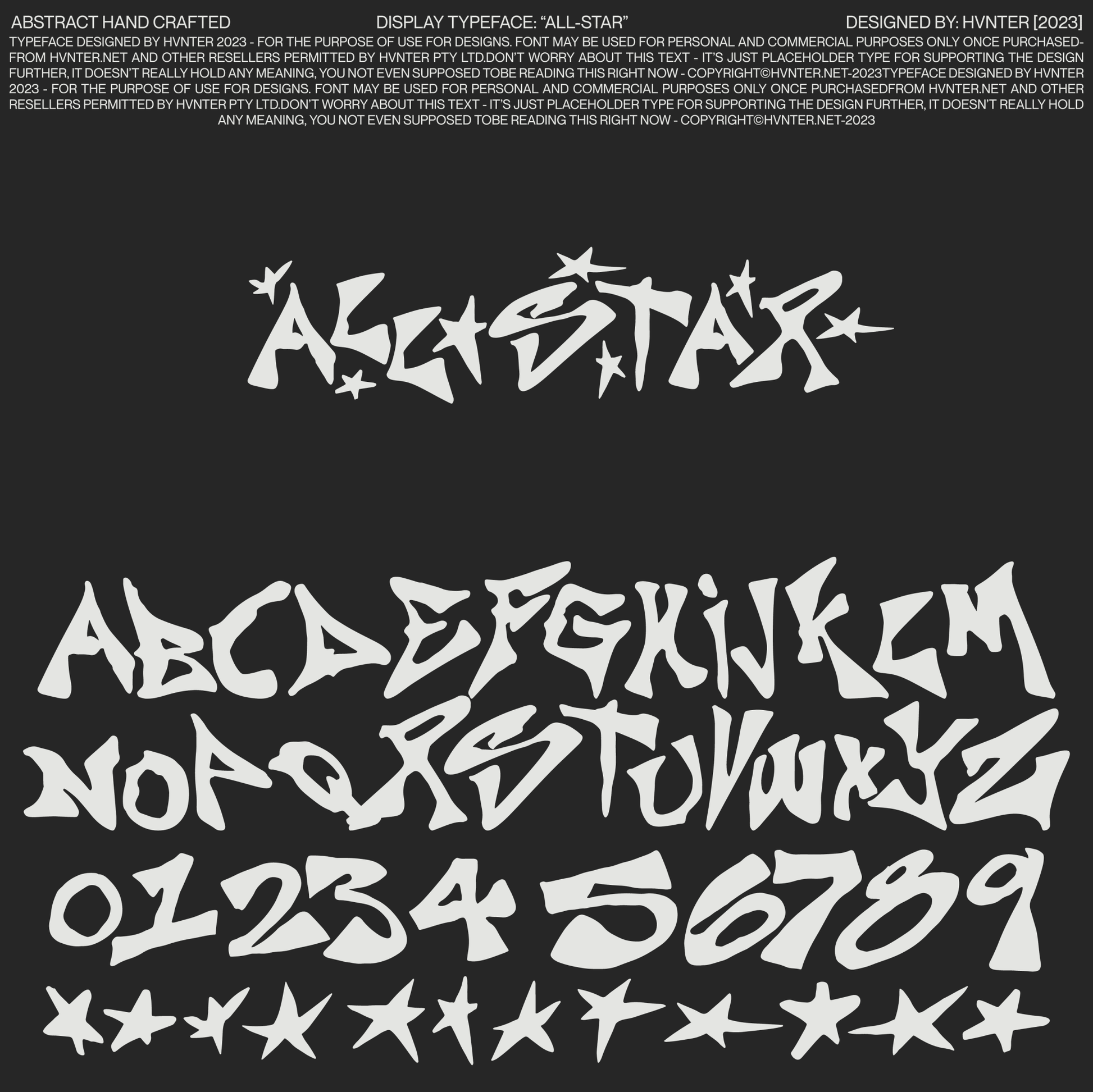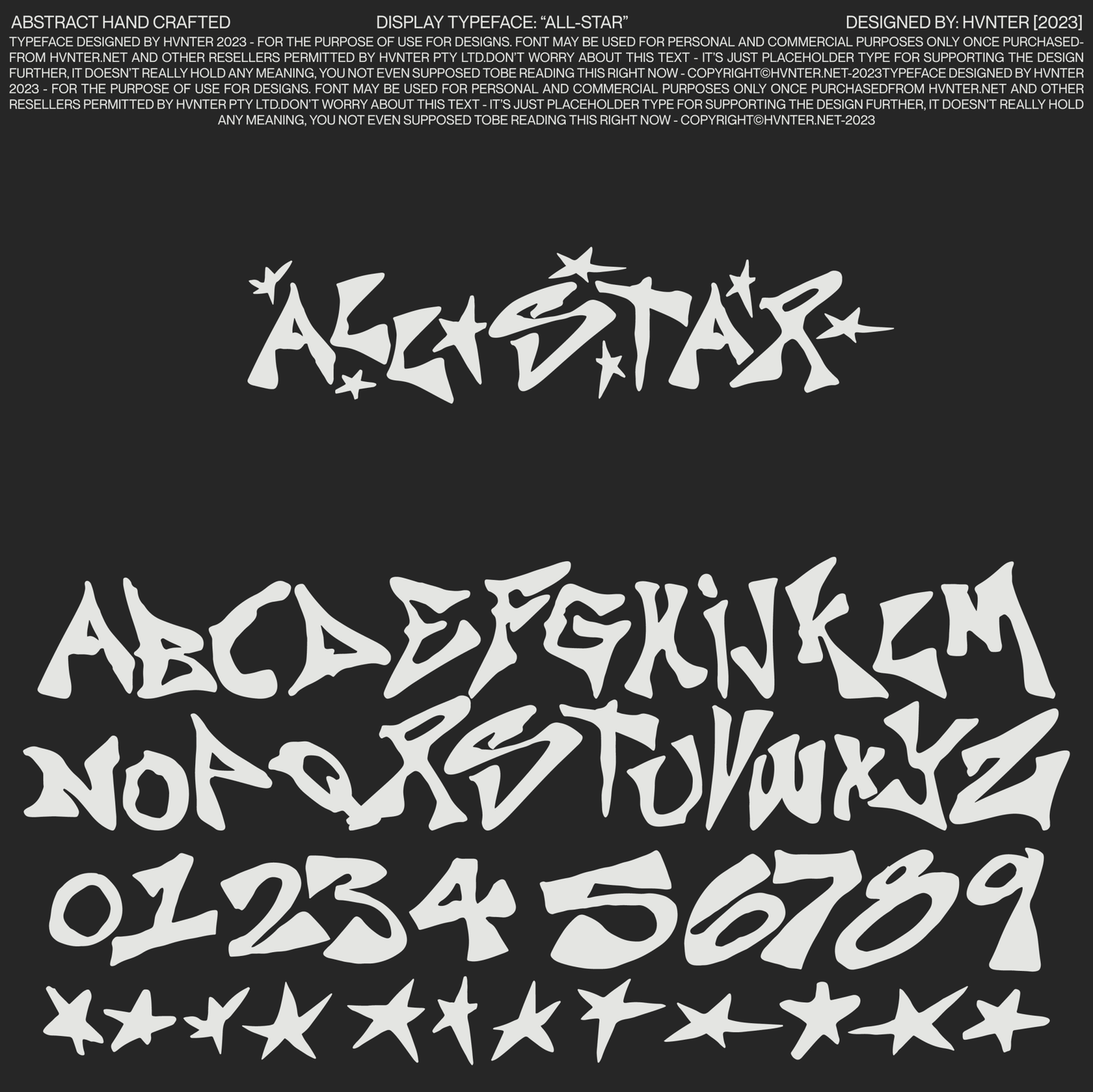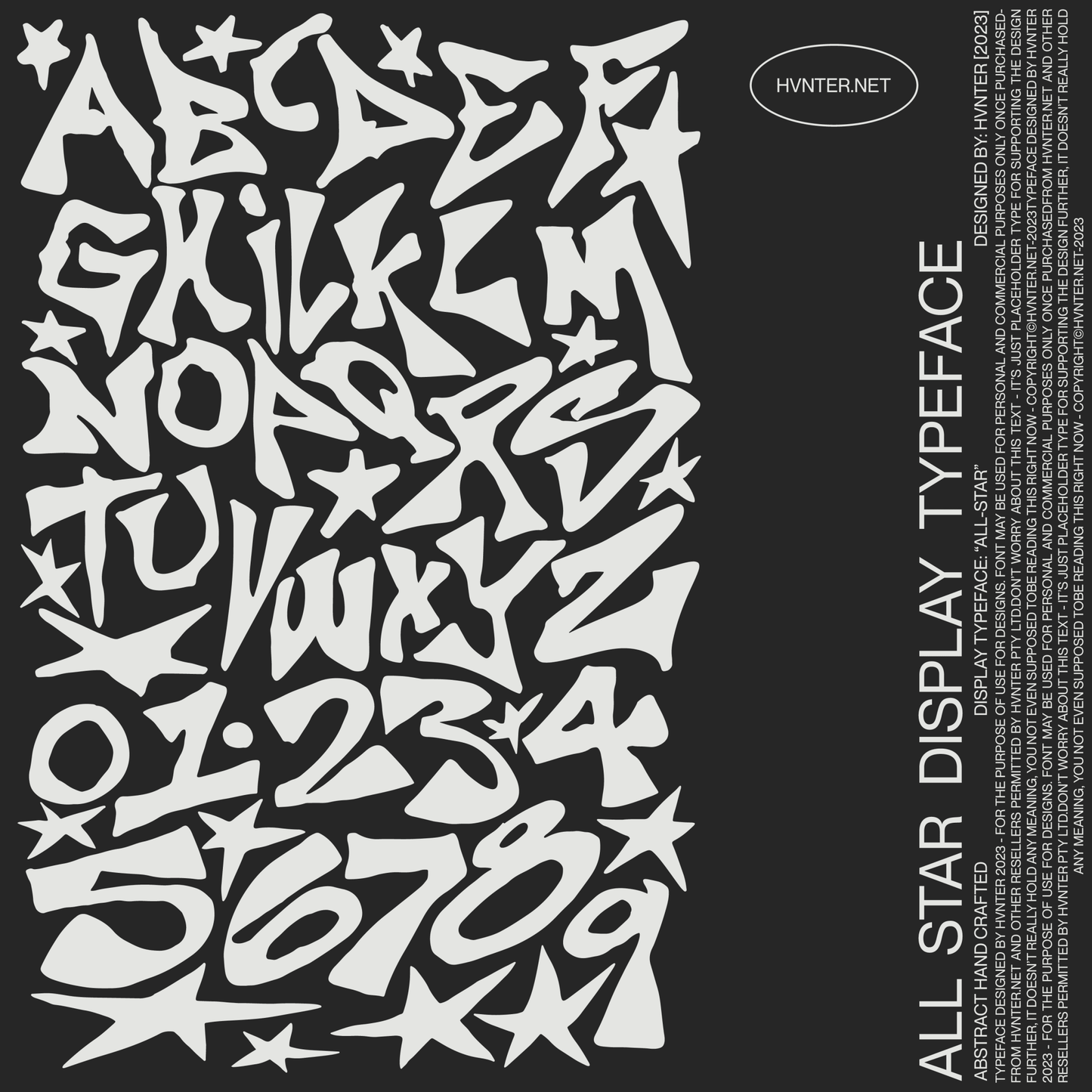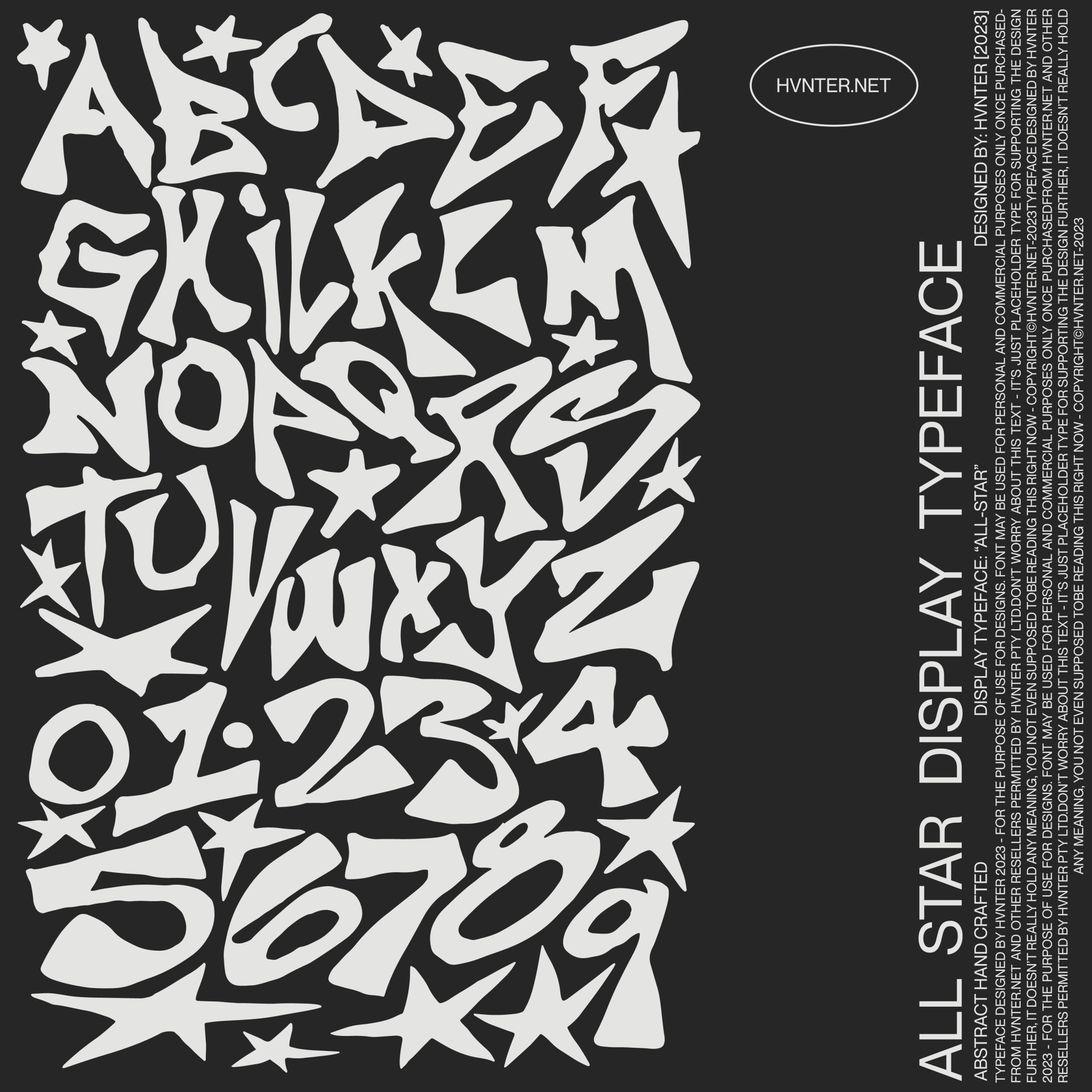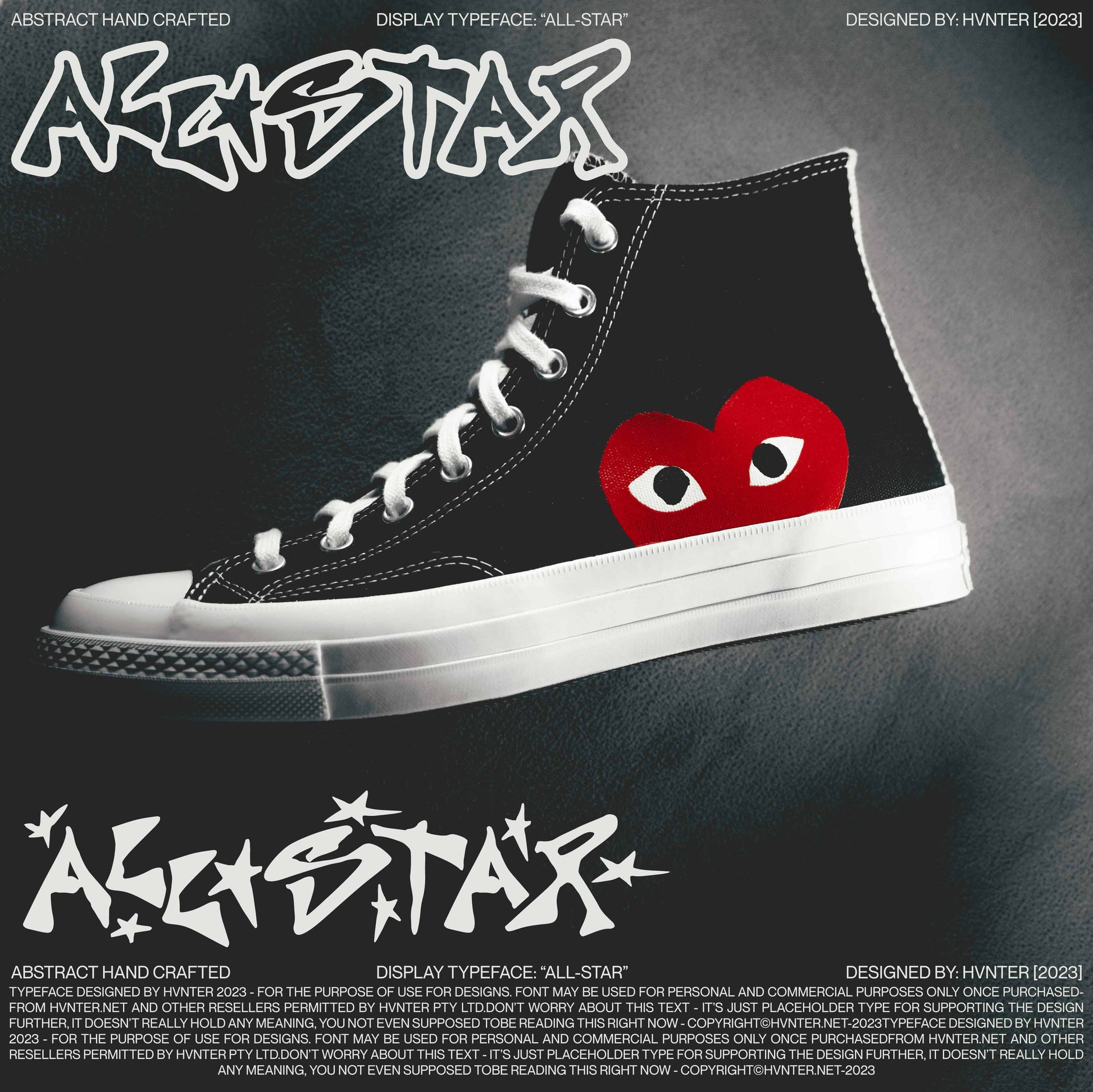
All-Star Display Typeface – Handcrafted Graffiti Font
All-Star is not polite typography. It’s sharp edges, bent proportions, and marker-driven motion frozen into vector form.
Each letter feels sketched, not constructed. Controlled chaos. The kind of alphabet that doesn’t sit quietly in a layout — it owns the space.
Designed by HVNTER, this display typeface includes:
- A–Z uppercase
- 0–9 numerals
- A curated set of star glyphs
The forms are abstract and expressive — ideal for posters, cover art, apparel graphics, merch drops, music visuals, skate culture, streetwear brands, zines, and anything that needs edge over elegance.
All-Star works best big. Headlines. Titles. Hero moments. Graphics that want to punch through the noise.
This is a display font. Not for paragraphs. Not for fine print.
It’s a spotlight typeface.
Character Set: Uppercase Latin + Numerals + Star Glyphs
Style: Abstract / Graffiti / Handcrafted Display
Designer: HVNTER